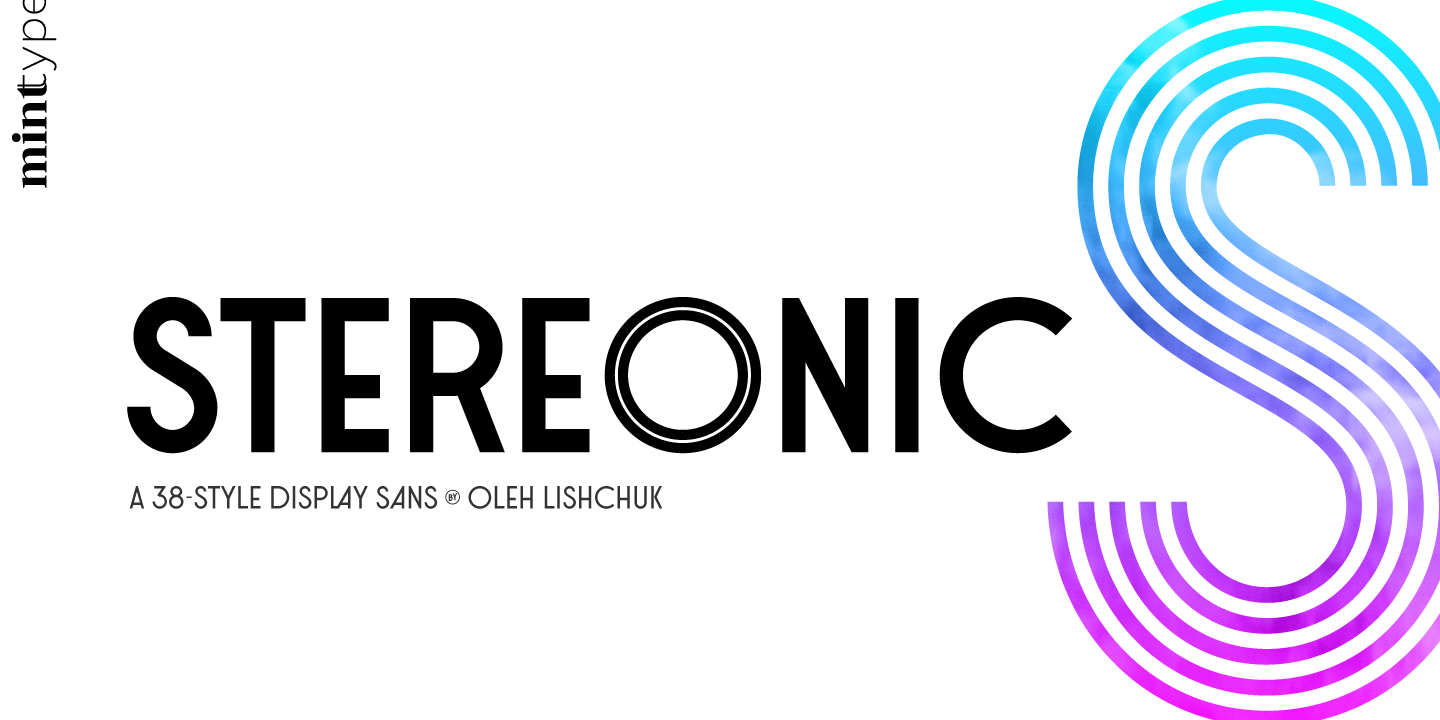
Stereonic Font is a distinct and captivating typeface, perfect for designs that aim to evoke a sense of retro-futurism, digital precision, or a unique, structured aesthetic. Its often modular, geometric forms and clean lines, reminiscent of early computer graphics or electronic displays, make it an excellent choice for gaming interfaces, sci-fi movie titles, electronic music branding, and tech conference materials. Imagine it gracing the screen of a classic arcade game, providing a sleek and organized feel for digital product packaging, or adding a cool, vintage-tech vibe to event posters for futuristic exhibitions. This font is also superb for music album covers (especially synthwave or retro-electronic), developer tool interfaces, and any project where clarity, a structured aesthetic, and a nostalgic yet forward-looking visual identity are key. It doesn't just display text; it vibrates with a digital pulse, connecting to both the past and the future.
What makes Stereonic Font so exciting is its remarkable ability to blend clean, modern design with a distinct nod to vintage digital aesthetics. It possesses a unique, almost pixel-perfect precision, giving it an undeniable sense of order and technological sophistication. This distinctive character makes it a fantastic choice for designers looking to infuse their projects with a sense of innovative clarity and a cool, retro-inspired vibe. It’s a font that speaks with a clear, almost robotic voice, making it ideal for brands and content creators who want to convey reliability, technological prowess, and a unique stylistic edge. Its structured appeal can make any message feel more impactful and visually intriguing.
The Stereonic Font family, given its often specialized and impactful design, might not always feature the extensive weight variations seen in more traditional typefaces. However, it typically offers different styles or complementary elements that enhance its unique aesthetic and provide creative flexibility. You might find variations such as:
Stereonic Regular
Stereonic Bold (for a stronger presence)
Stereonic Light (for a more ethereal look)
Stereonic Outline
Stereonic Glitch (if designed with a digital distortion effect)
These variations empower designers to maintain a consistent thematic aesthetic while adding depth and visual punch to their compositions. The availability of Stereonic Font Free Download offers an excellent opportunity to explore its unique blend of precise design and retro-futuristic charm for your personal design ventures.